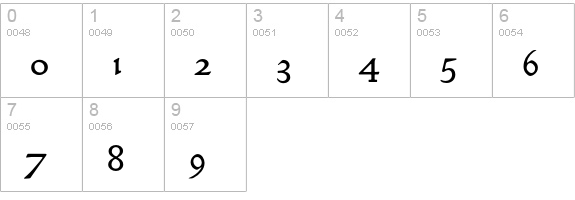
GoldenTypeSCEF-Original Font Details
GoldenTypeSCEF-Original font is a stunning display font that exudes elegance and sophistication. With its intricate and ornate design, this font is perfect for adding a touch of luxury to your projects. The intricate details and unique style of GoldenTypeSCEF-Original make it a standout choice for branding, invitations, logos, and more. The best part? GoldenTypeSCEF-Original is completely free to download at FontsMarket.com. This means you can elevate your designs with this beautiful font without breaking the bank. Whether you're a designer looking to add a touch of glamour to your work or someone looking to make a statement with their projects, GoldenTypeSCEF-Original is the perfect choice. Download it today and let your creativity shine with this exquisite font.